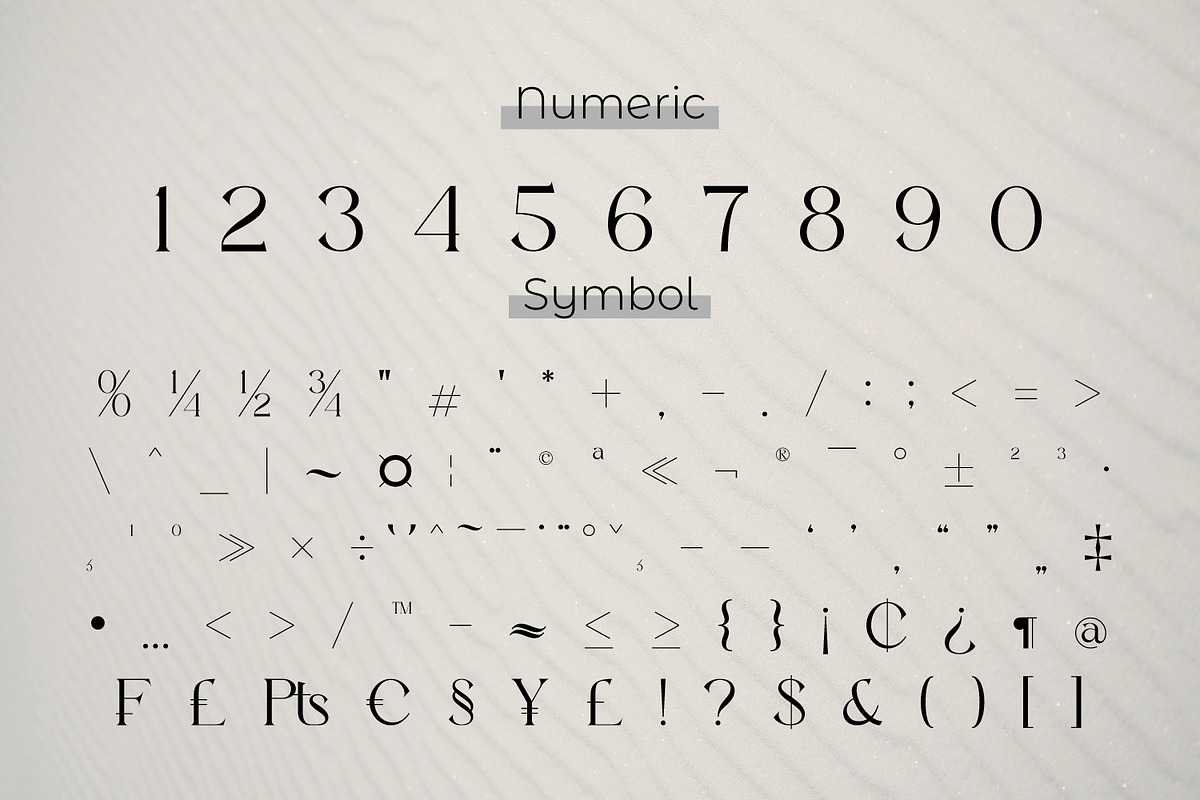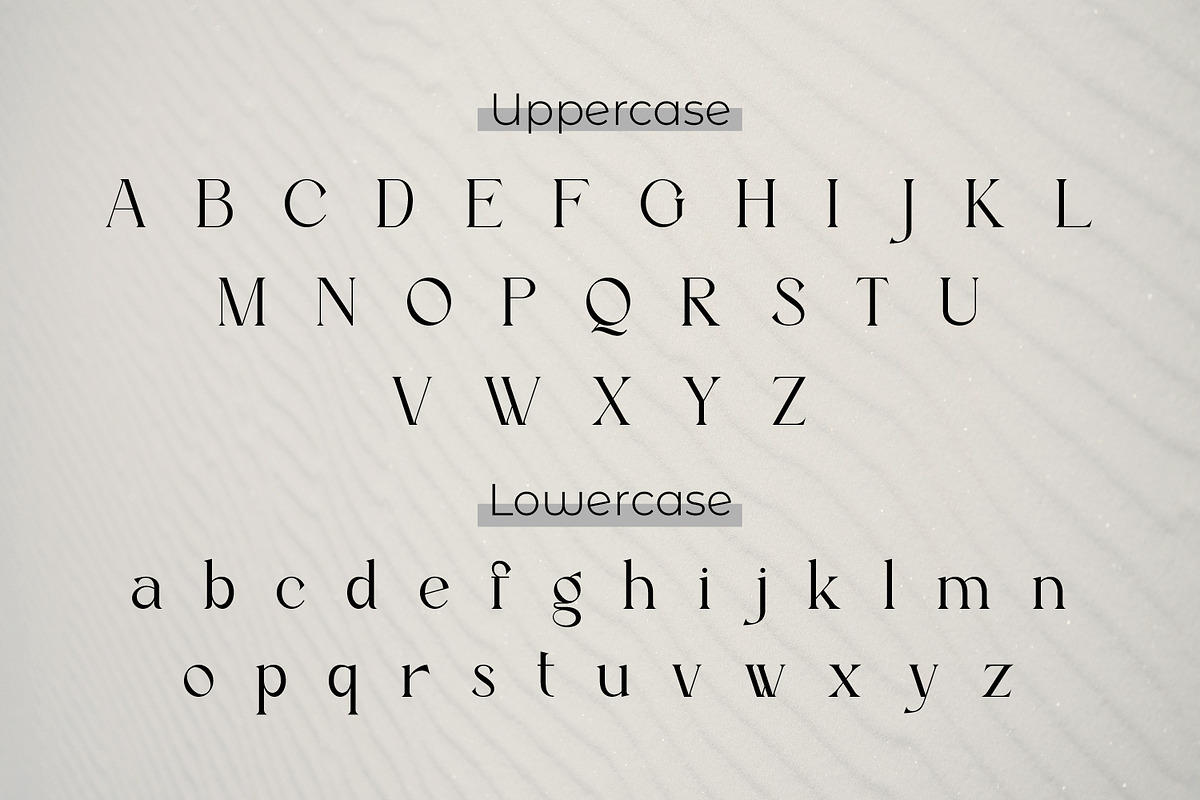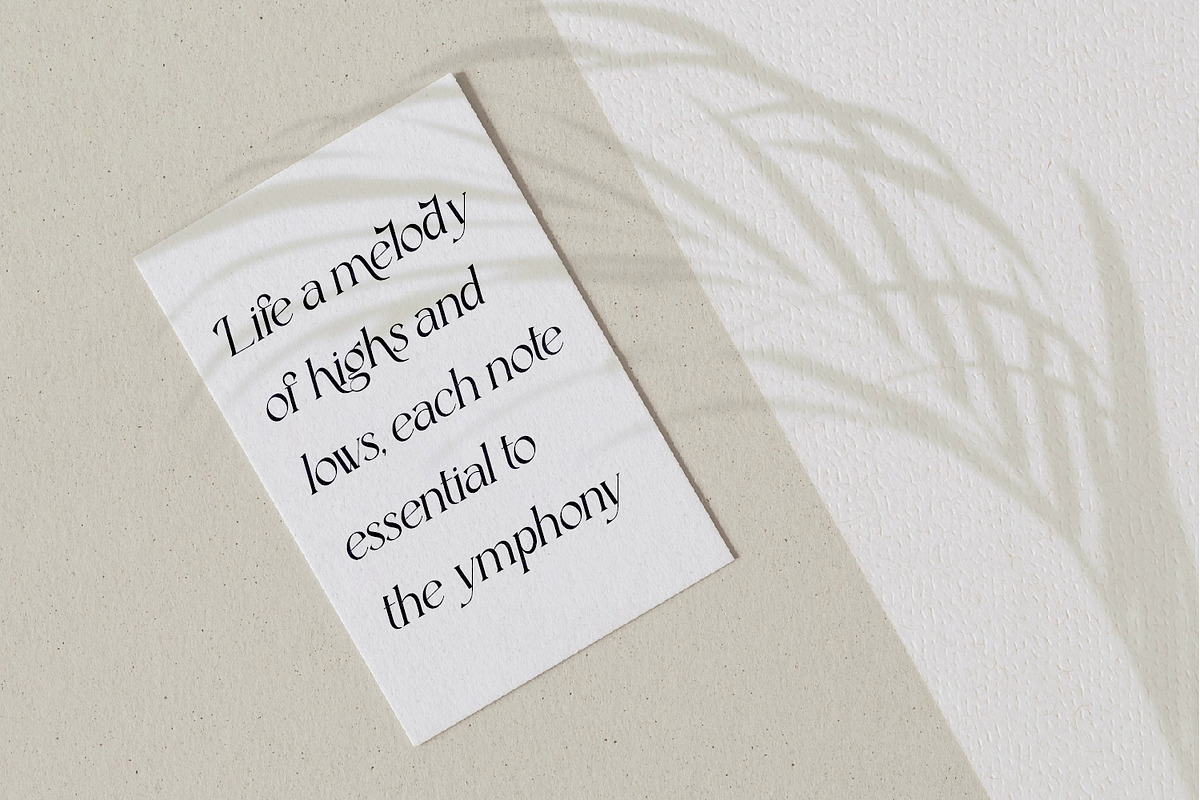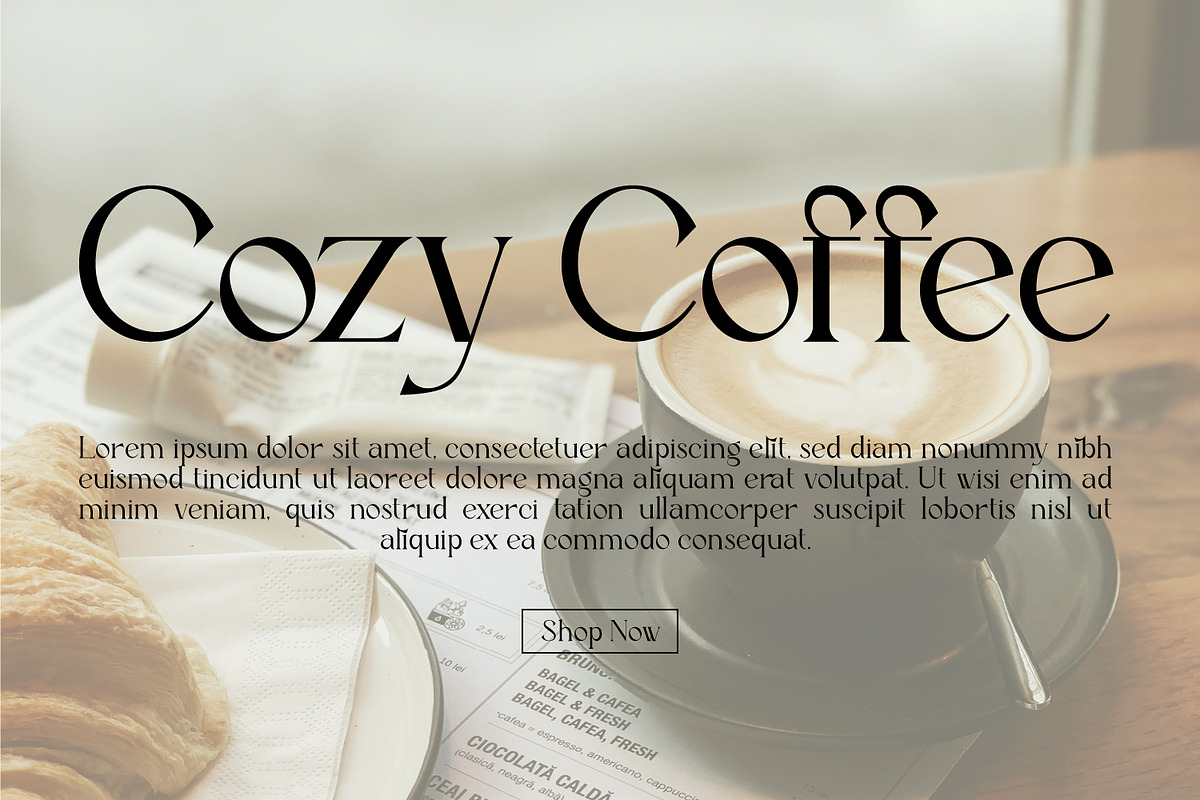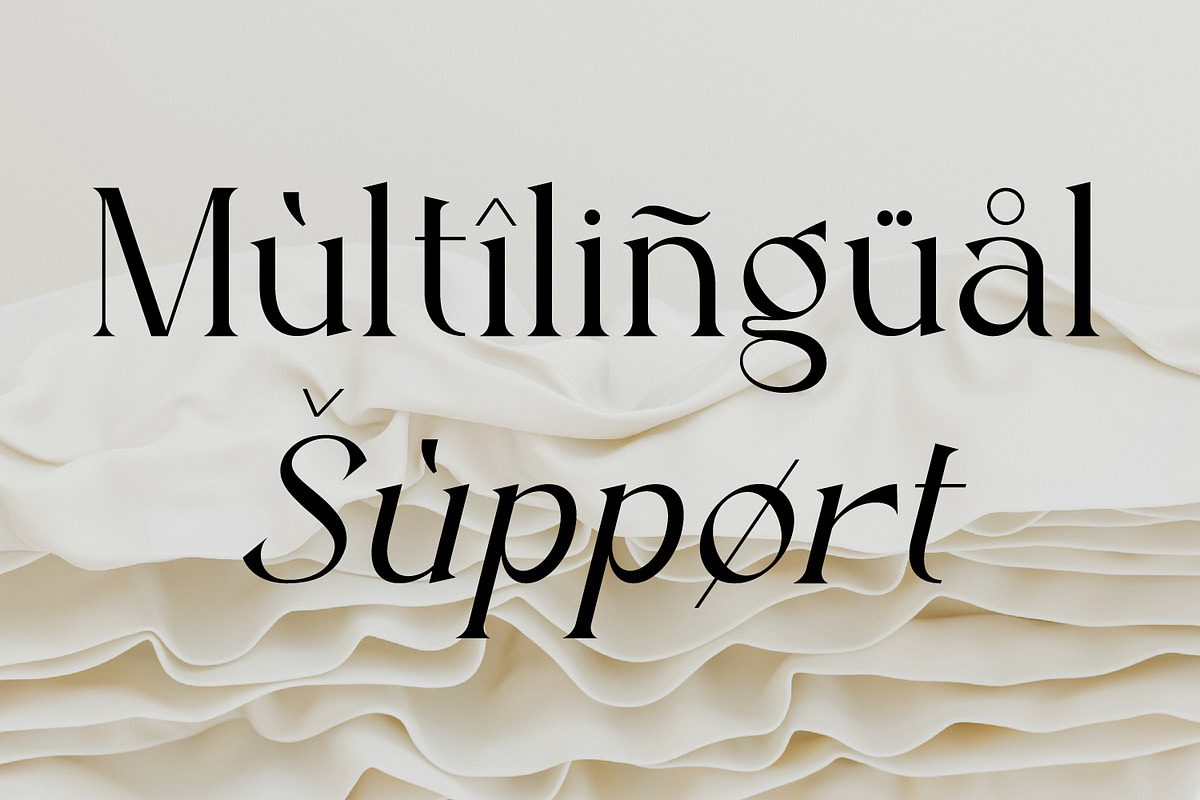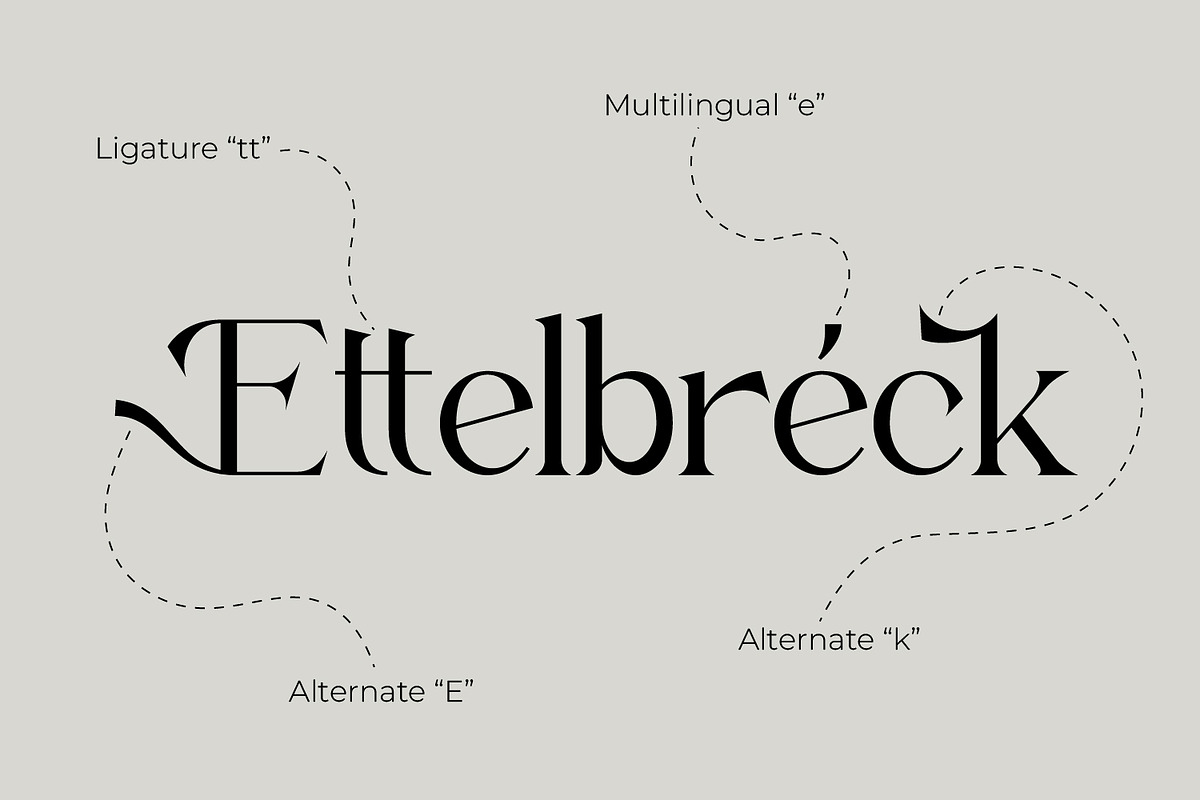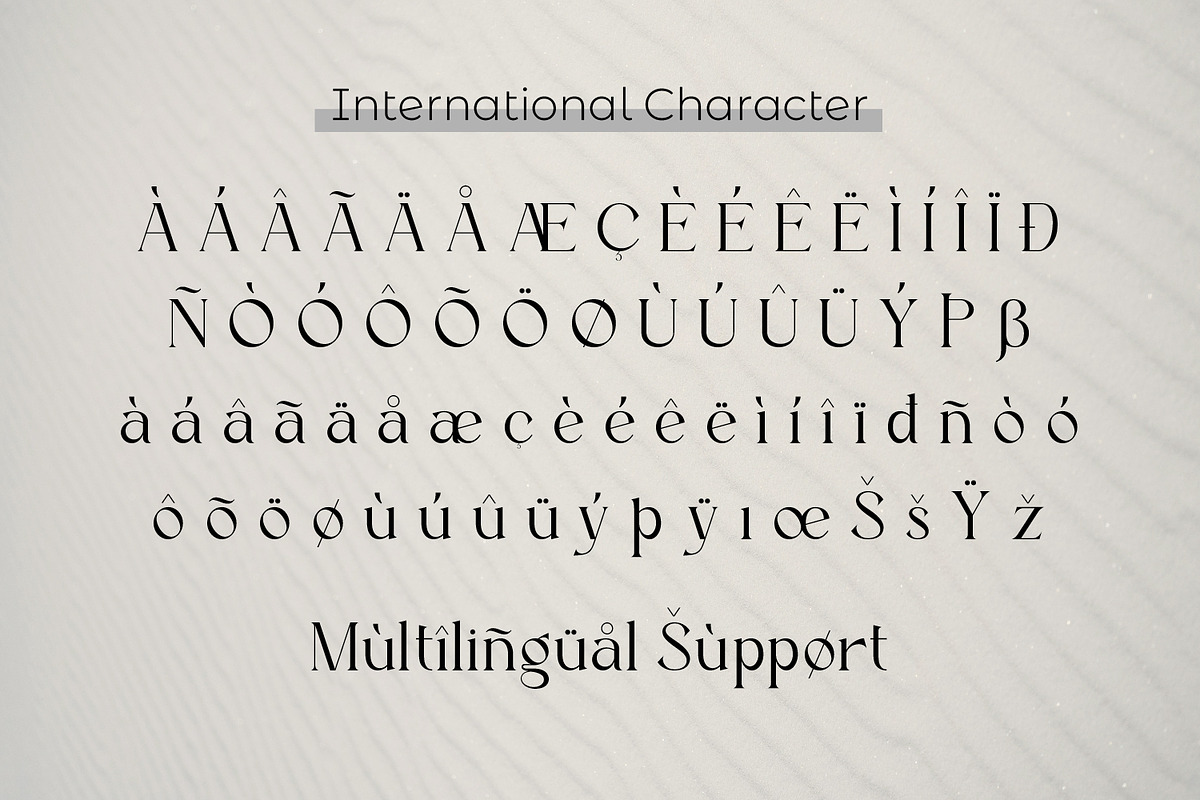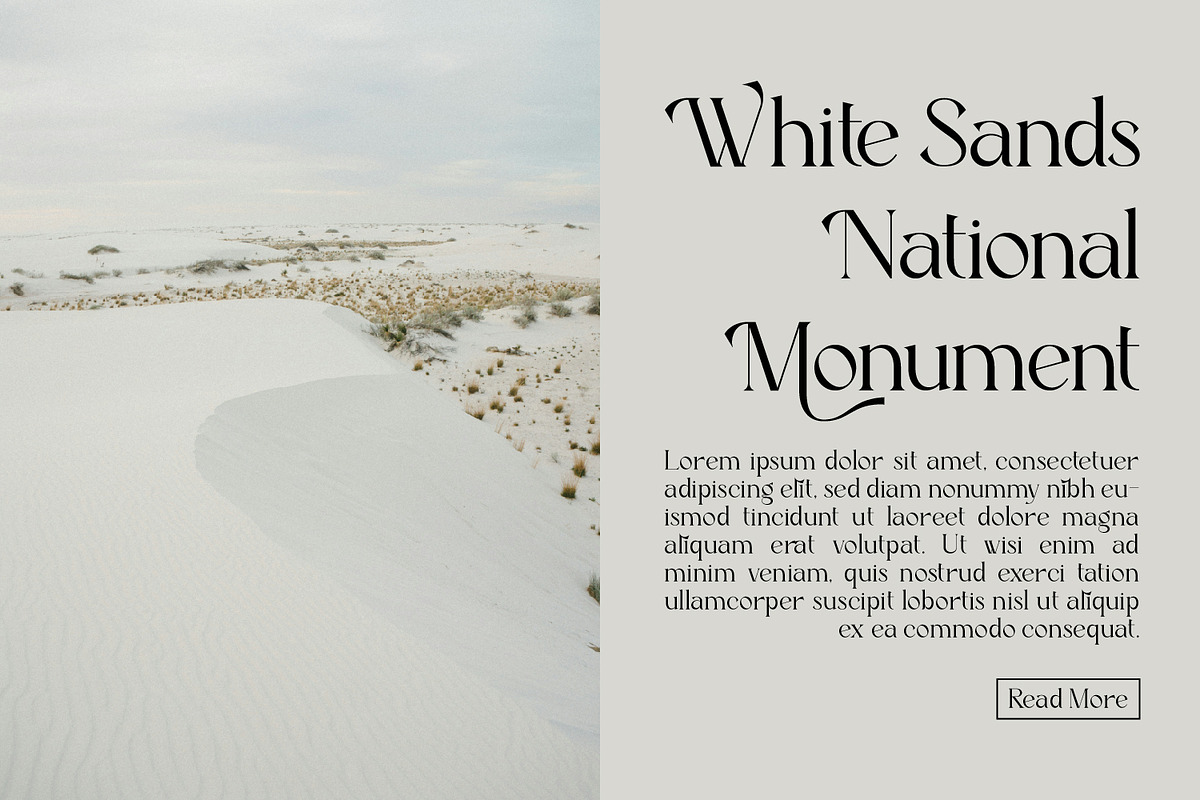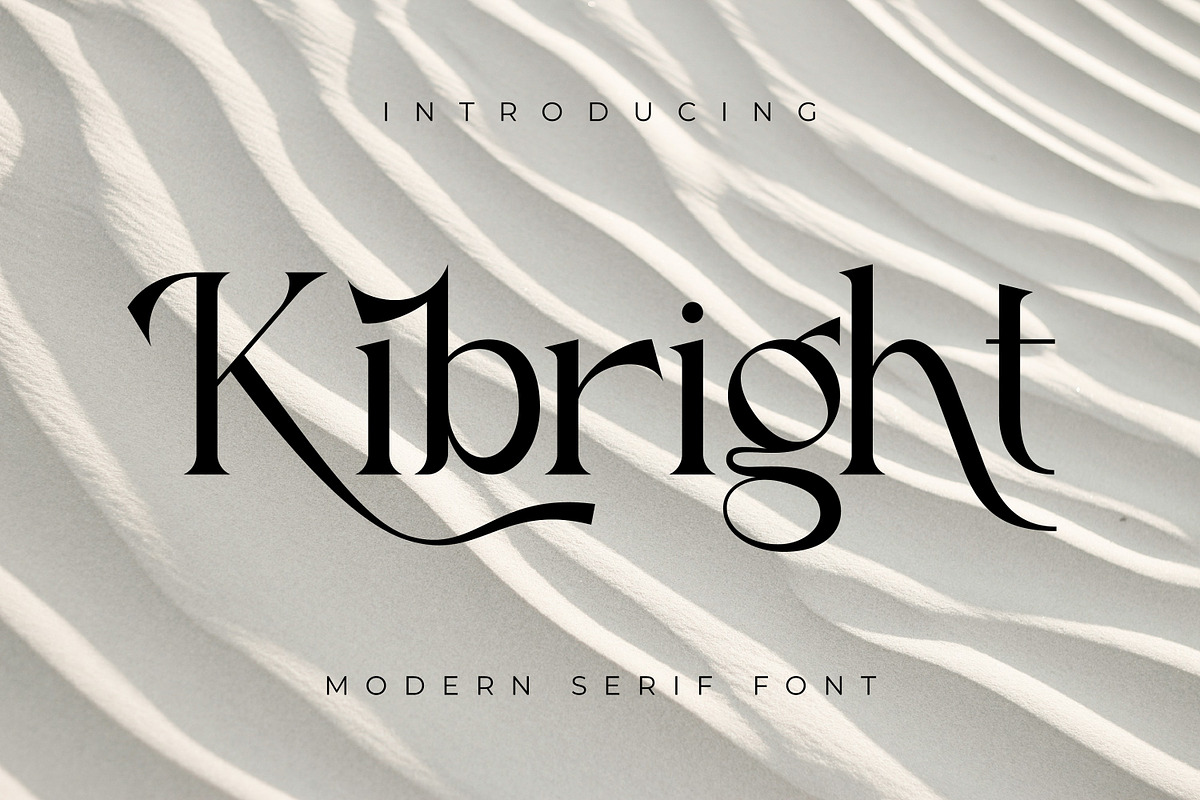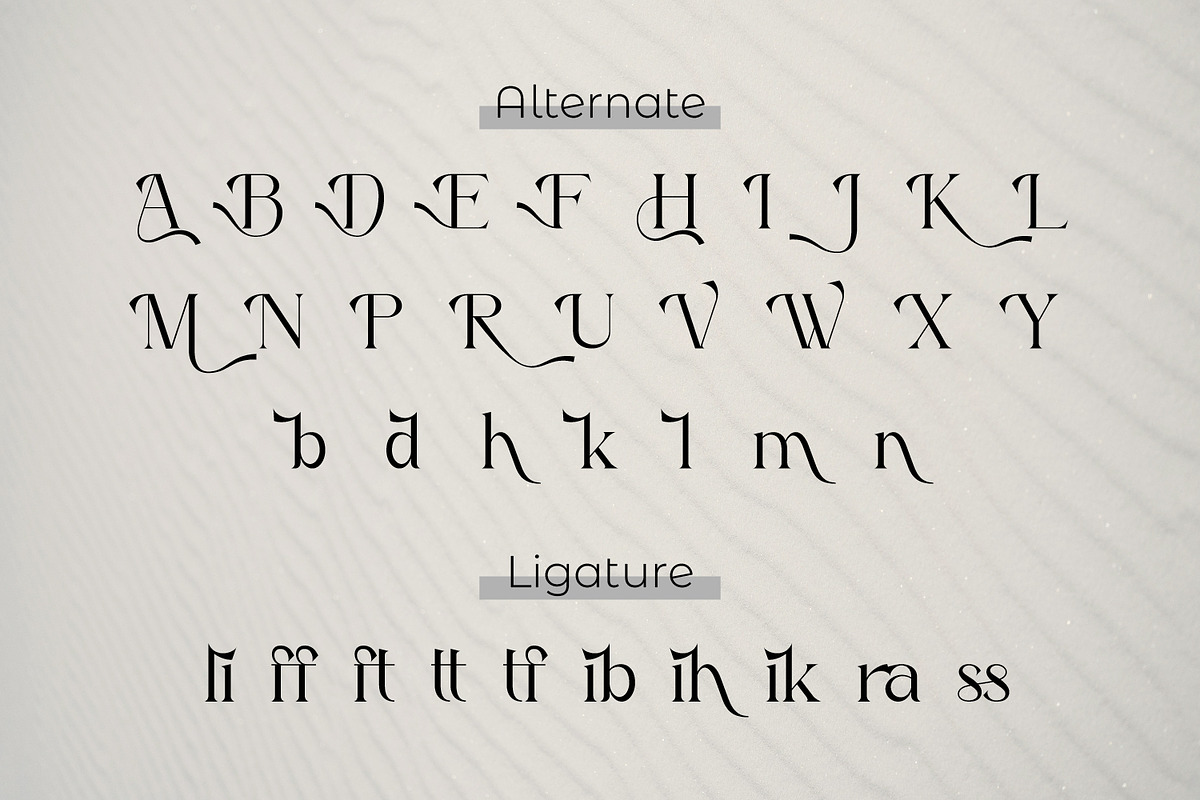
Kibright
Kibright - Modern Elegant Serif Font, from Rishsketch Studios, is a premium Serif Font, perfect for any project that requires a distinctive, and premium feel.
- Ligature, Alternate & amp; Multilingu